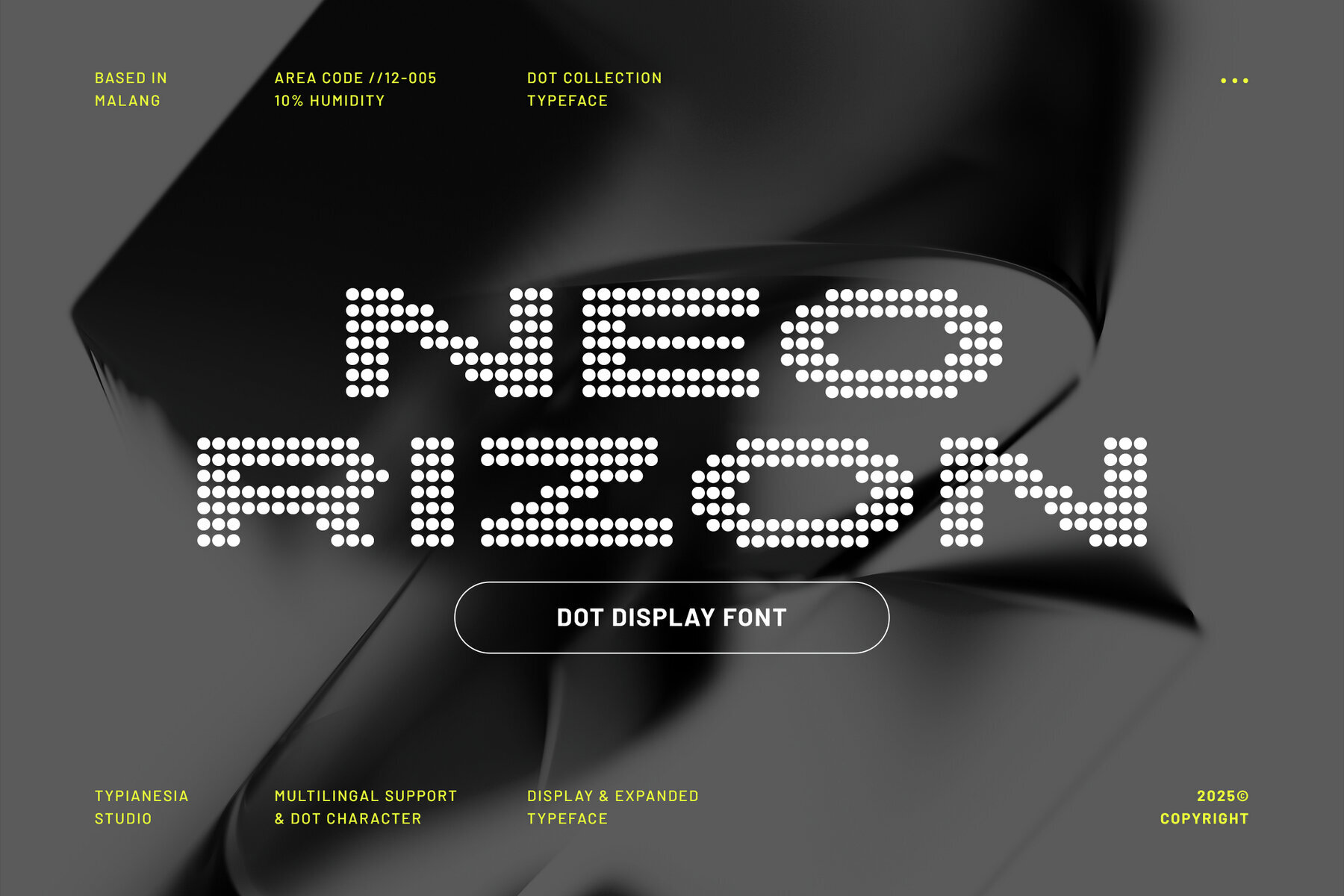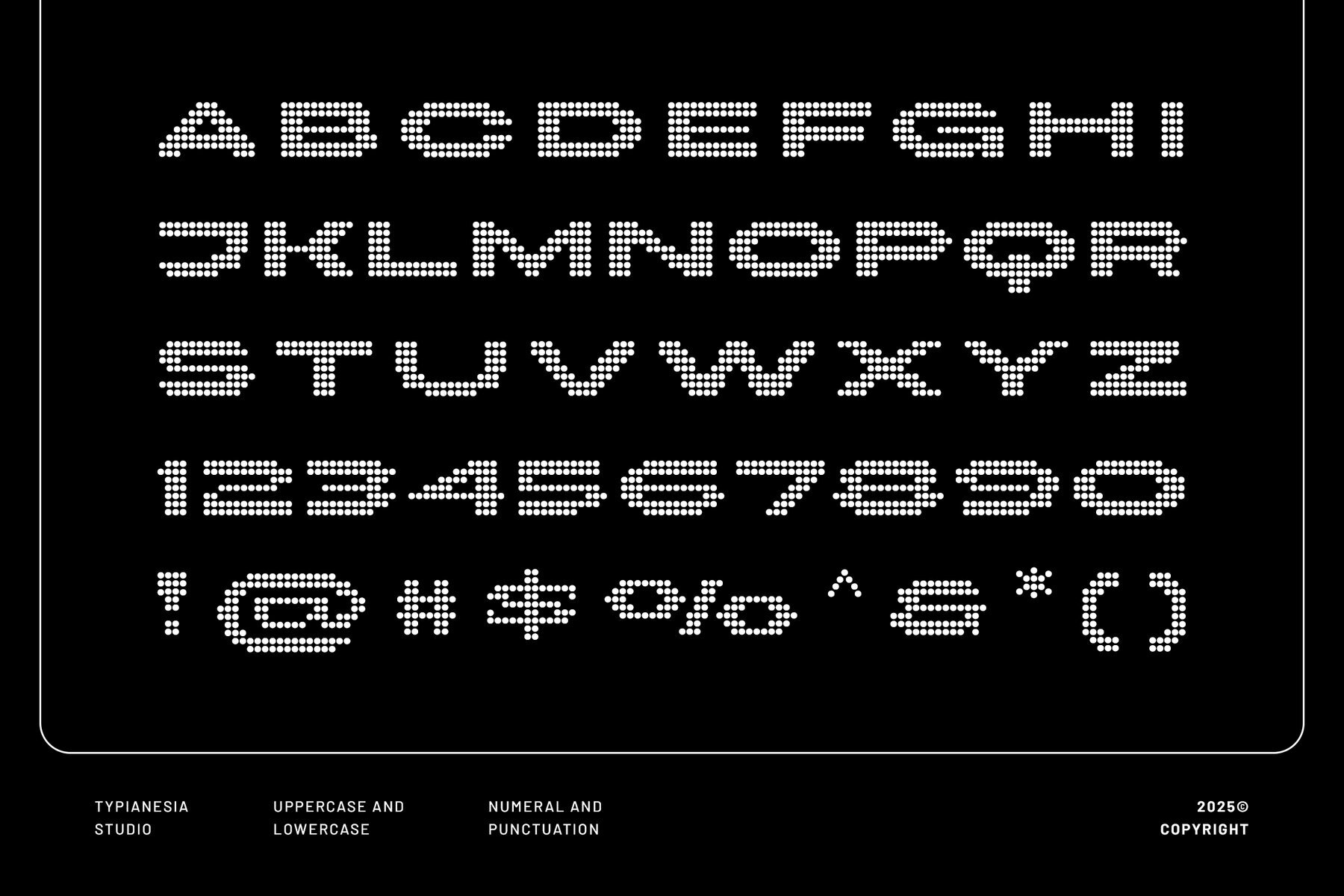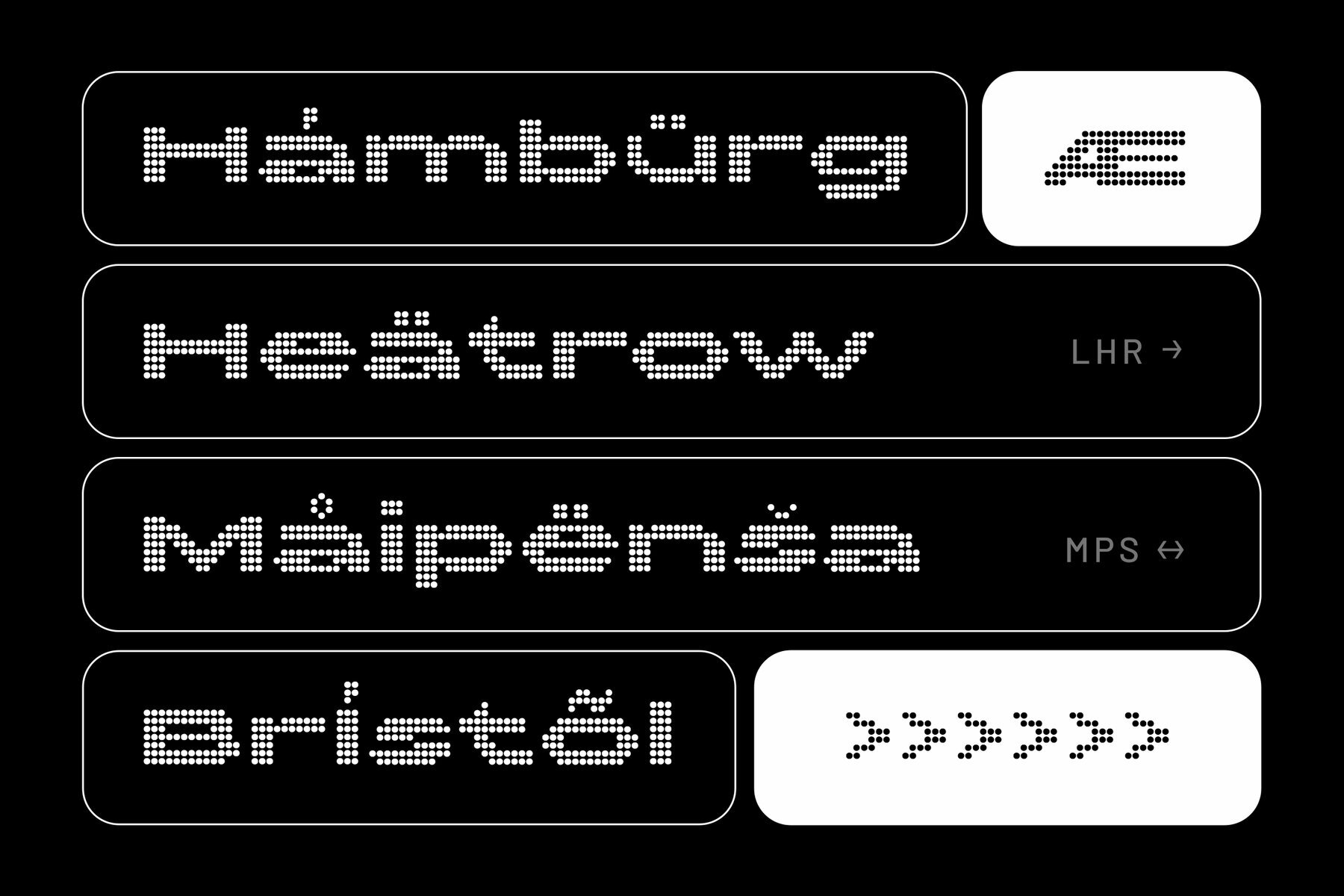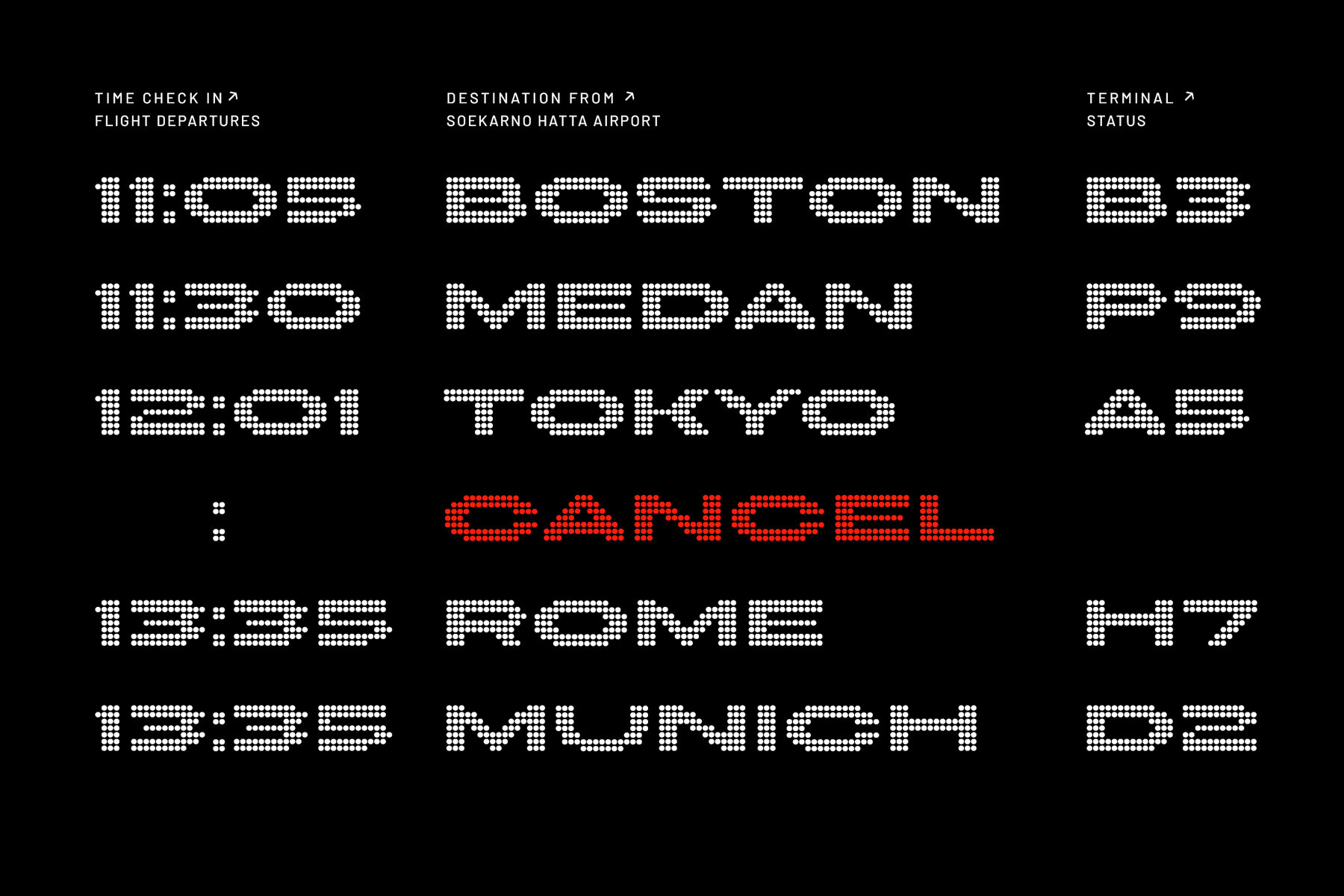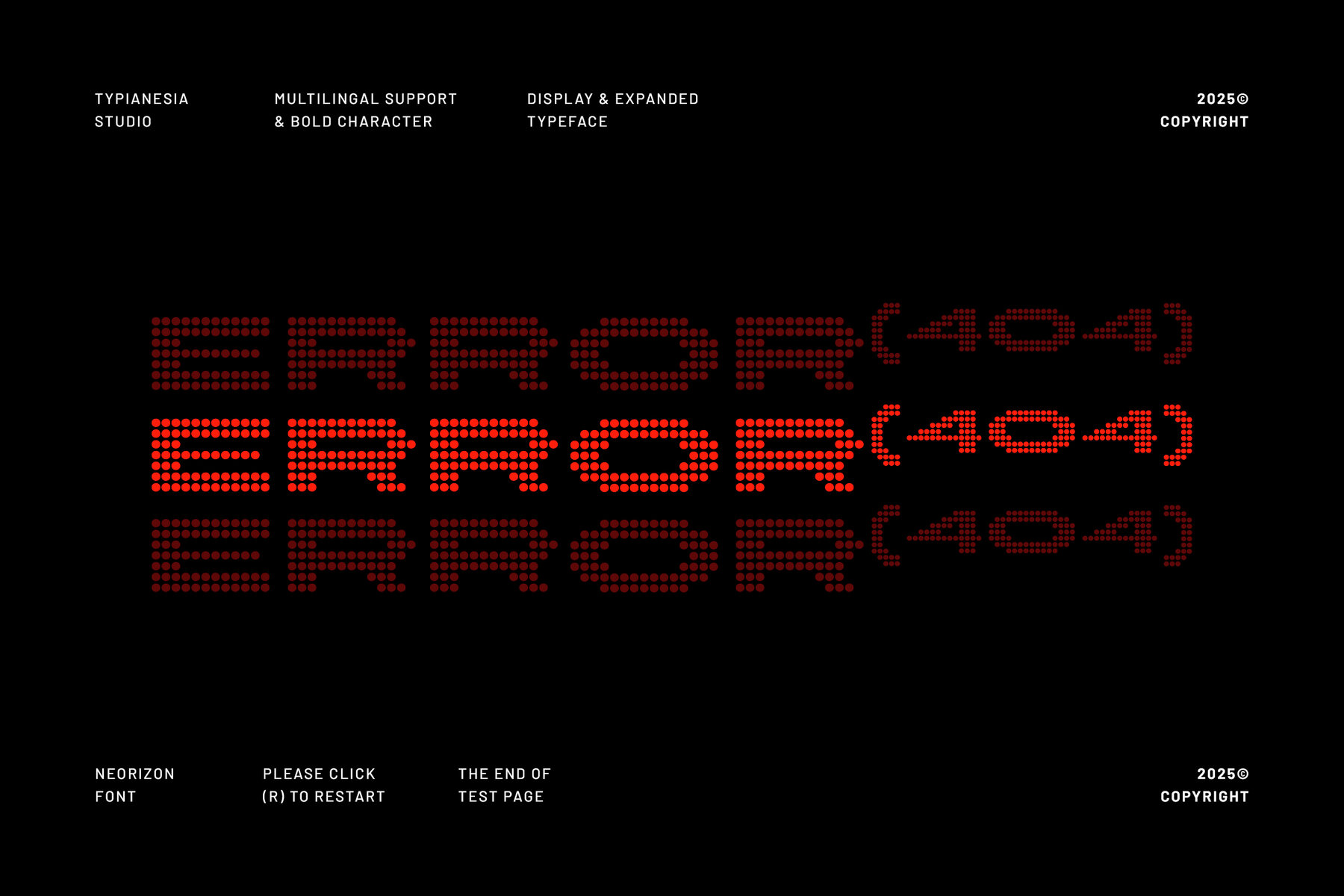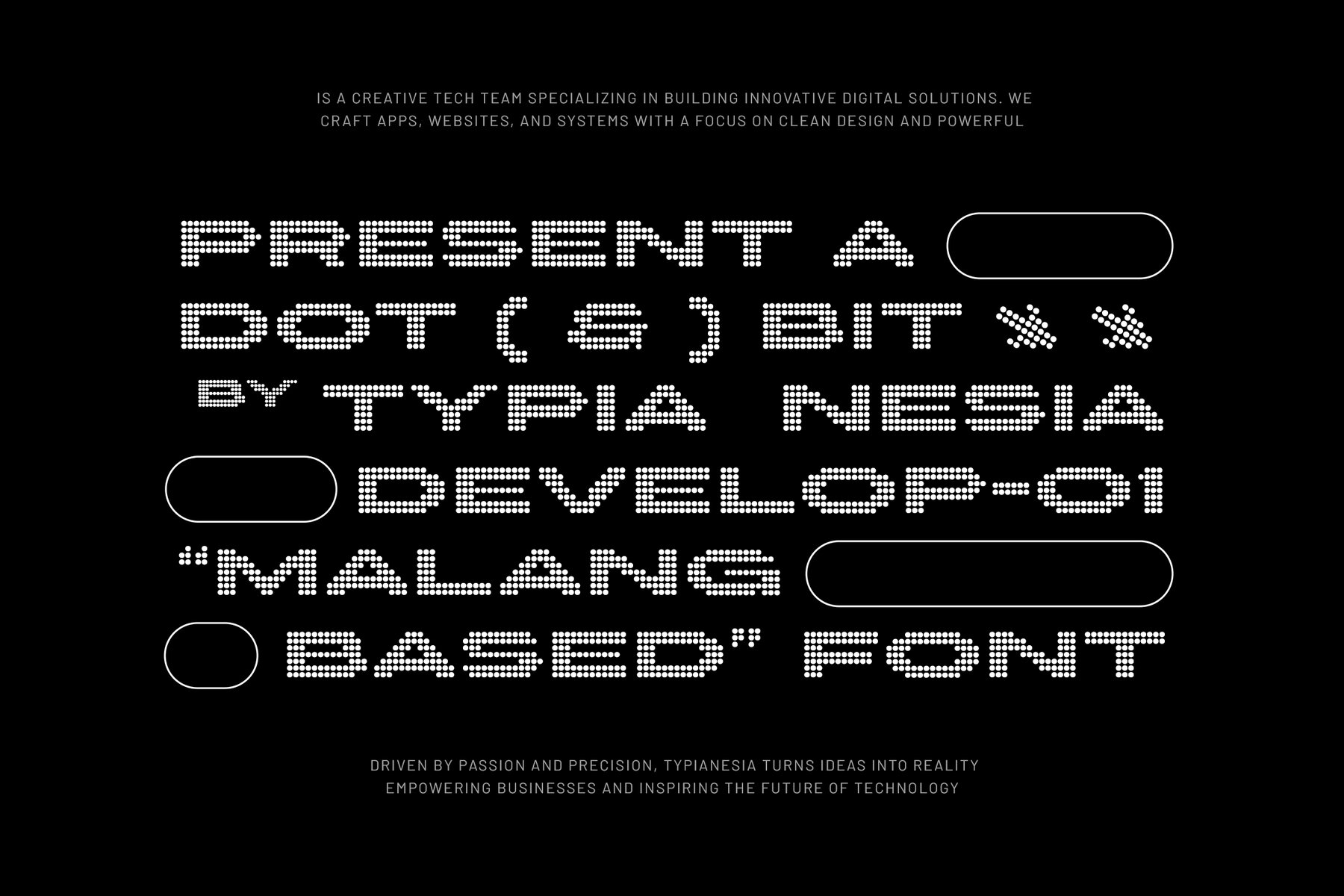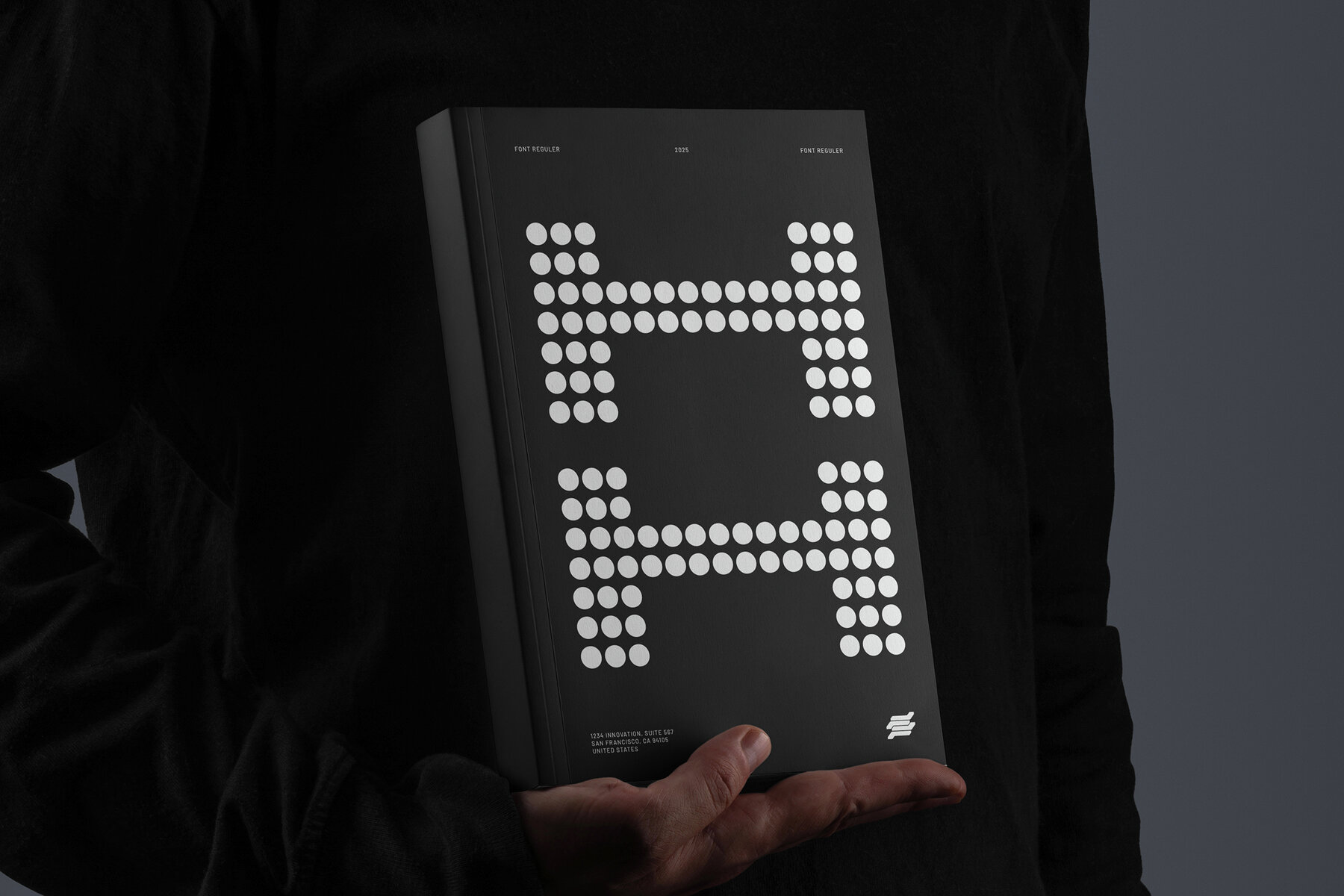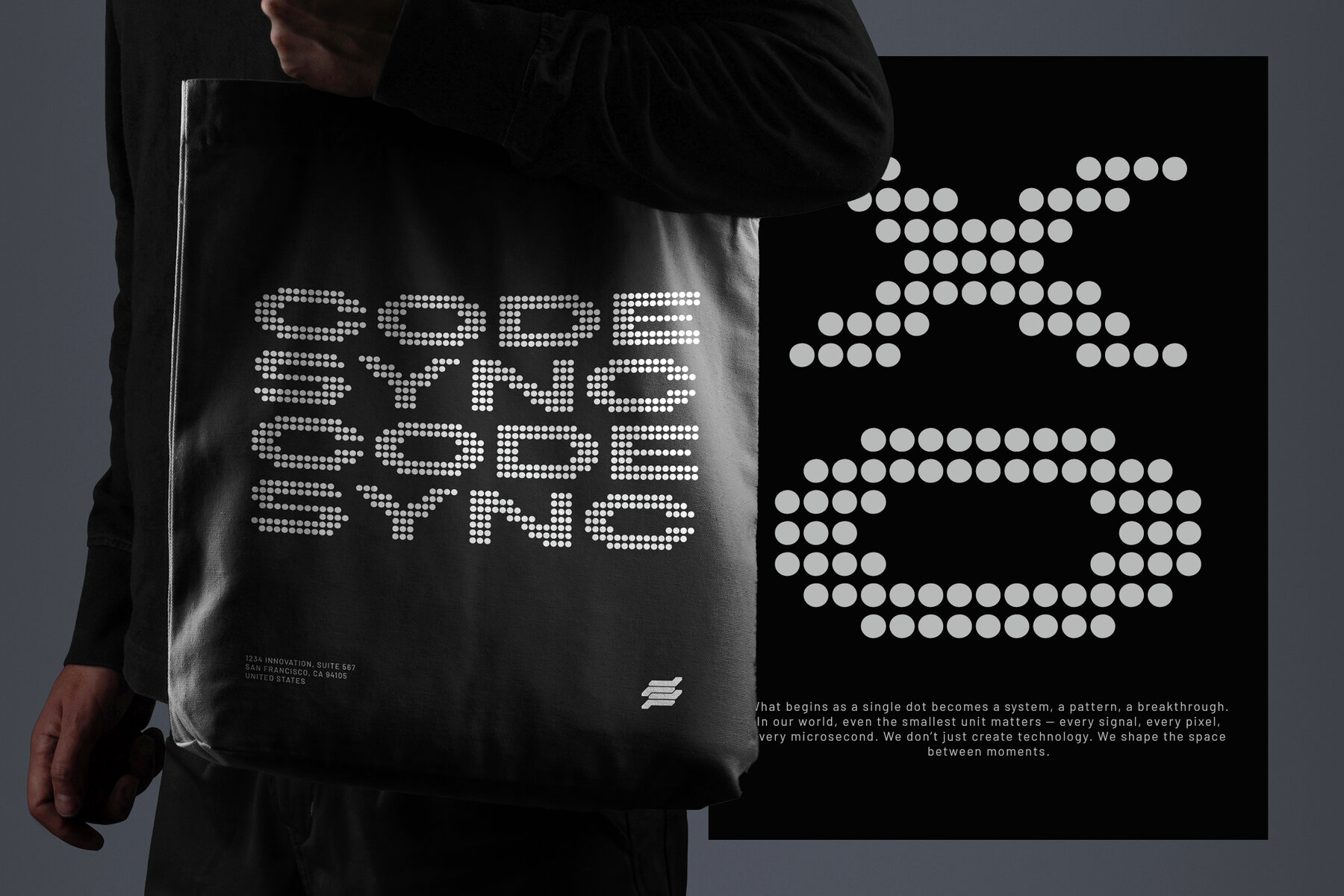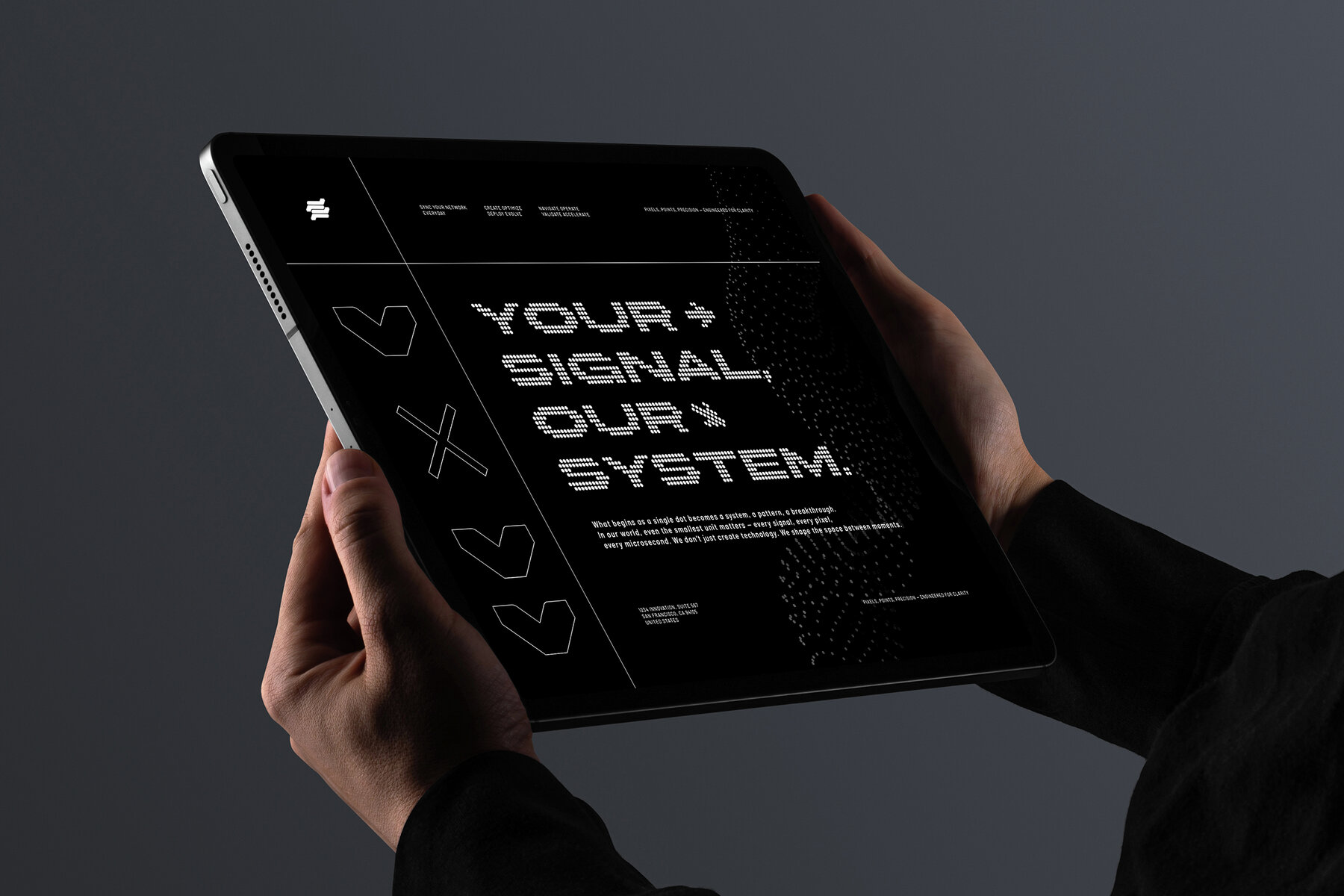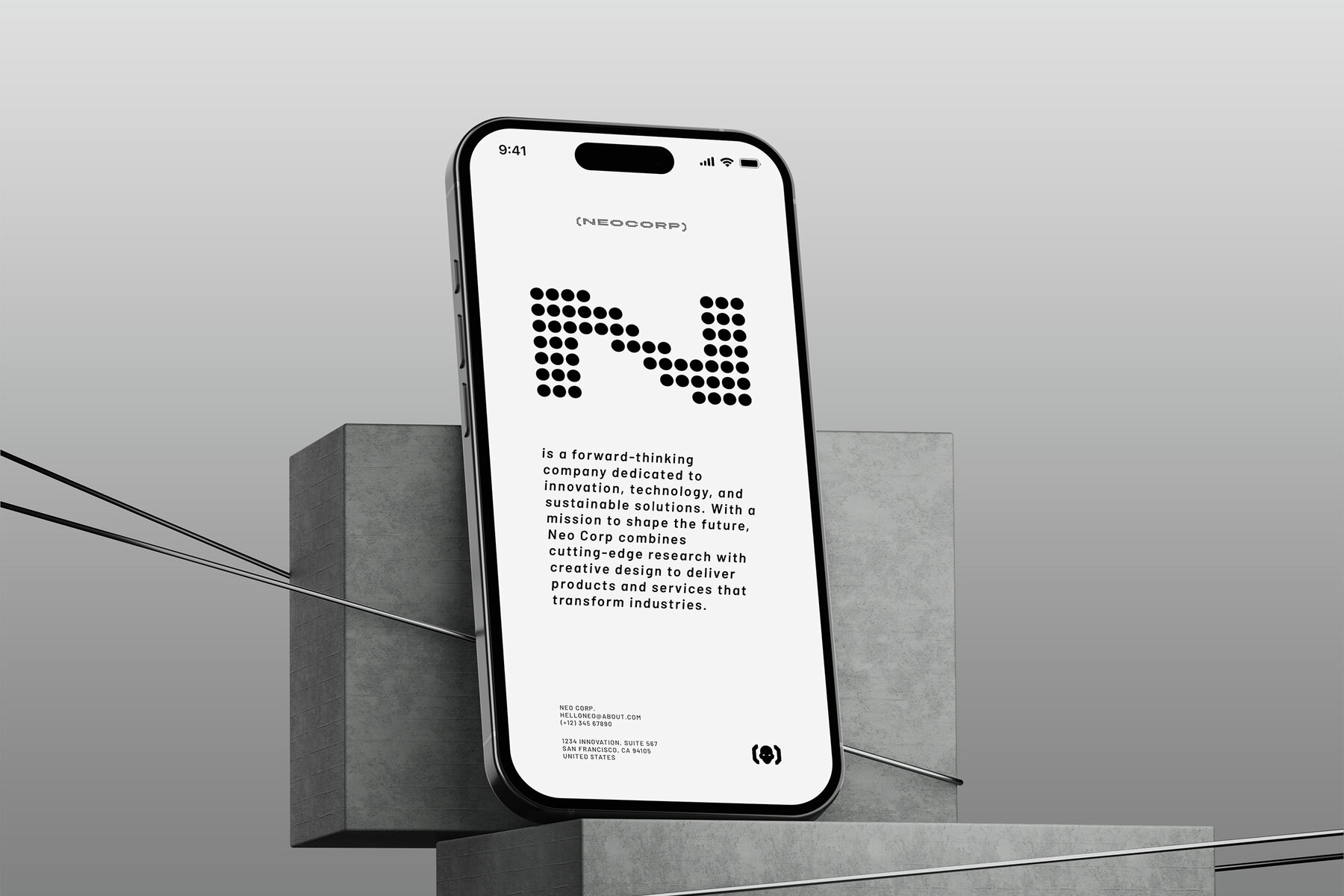
Neo Rizon Font
Neo Rizon Regular
Neo Rizon - Modern Dot Display Expanded Neon Typeface - Digital Retro Futuristic Gaming Designs Neo Rizon is a captivating dot display font that perfectly embodies digital and retro-futuristic aesthetics. Constructed from precise, circular dots, this neon inspired typeface evokes the nostalgic charm of 8-bit gaming and classic dot matrix displays, while maintaining a clean, modern feel. Ideal for sci-fi projects, tech branding, gaming titles, digital interfaces, logo, poster and any design needing a distinct, pixelated yet sophisticated look, Neo Rizon offers a unique visual language for screens and print alike. Step into the future (or past) of typography. Download Neo Rizon Font now! Thank You.